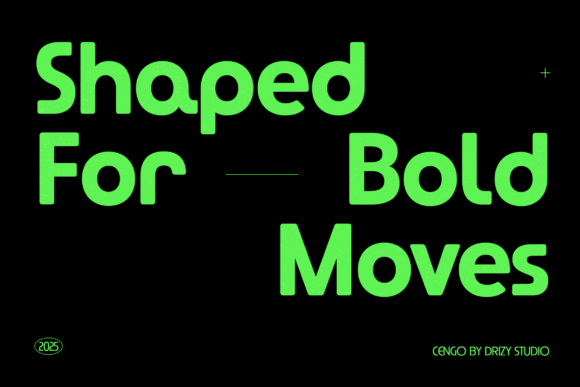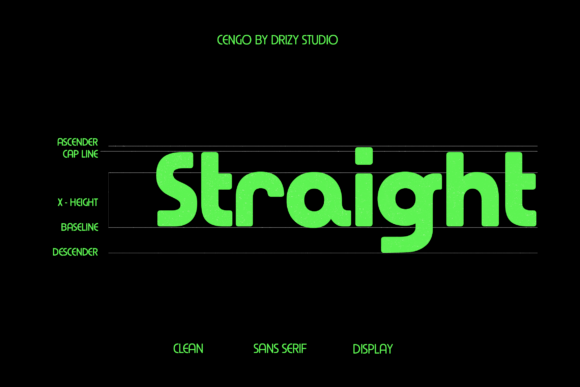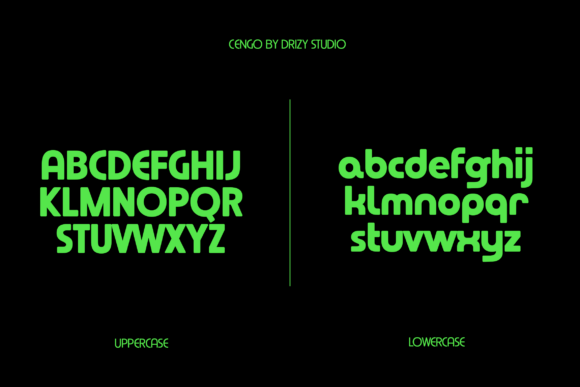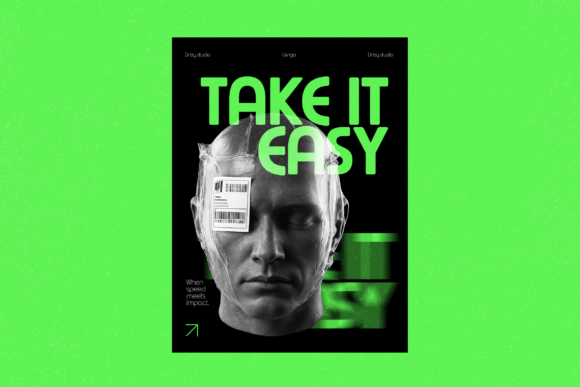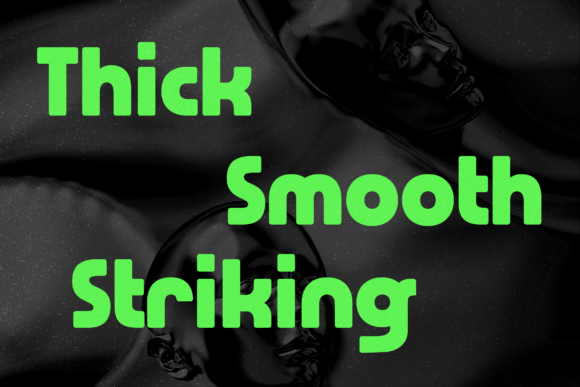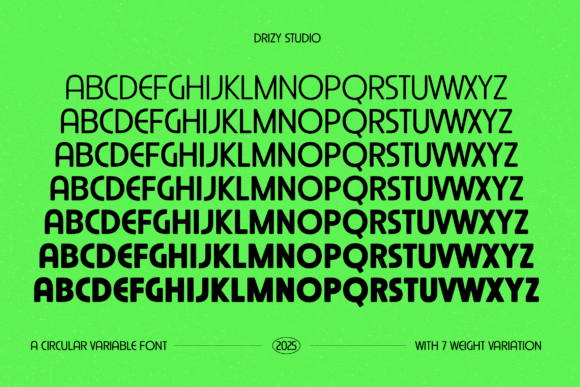
Unlock the Power of Cengo Regular Font
Imagine you’re staring at a blank page, a blank canvas waiting for the perfect words to bring it to life. The cursor blinks, and suddenly, the idea hits – a bold typographic poster that captures the essence of your brand. But, the key to making it happen lies in the right font. Enter Cengo Regular Font, a sleek, modern Circular Sans typeface designed to deliver precision and clarity.
This fully variable font is more than just a pretty face – it’s a powerful tool for creative professionals who value functionality with a modern edge. With 7 variable weights, Cengo Regular Font adapts seamlessly to any design project, from minimalist logos to editorial layouts. Its clean, geometric letterforms and smooth curves bring warmth and structure to your designs, making it a valuable addition to any designer’s toolkit.
- Unique Characteristics: Cengo Regular features a modern, clean design with subtle rounded edges and a neutral tone, making it suitable for various design applications, including digital and print media.
Cengo Regular Font Review
First off, let me say that Cengo Regular Font is a decent choice for your design needs. ✨ One thing that stands out is its versatility – it works well in both body text and headings. The font is clean and modern, making it perfect for digital products, websites, and apps. The sans-serif design also gives it a friendly, approachable feel that’s easy to read.
Another great thing about Cengo Regular Font is its font pairing potential. ✨ It works well with a variety of fonts, from serif to sans-serif, making it a great addition to your design arsenal. Additionally, the font is highly legible, even at smaller font sizes, which is a must-have for any font.
Limits and Drawbacks
- ⚠️ The font may not be as distinctive as other fonts on the market, making it blend in with the crowd. If you’re looking for a font that makes a statement, Cengo Regular Font might not be the best choice.
- ⚠️ Some users have reported issues with the font’s italic and bold styles, citing inconsistent spacing and formatting.
Cengo Regular Font is a solid, dependable choice for designers. While it may not be the most exciting font, it’s a great all-around font that works well in a variety of situations. If you’re looking for a clean, modern font that’s easy to read and pair well with other fonts, Cengo Regular Font is definitely worth considering.
Getting the Most Out of Cengo Regular
Here are some tips for getting the most out of Cengo Regular font:
- Use it for clean and simple designs.
- Pair it with bold fonts for contrast.
- Use it for headings and titles.
Cengo Regular font is suitable for:
- Business cards and stationery.
- Brochures and flyers.
- Website headings and titles.